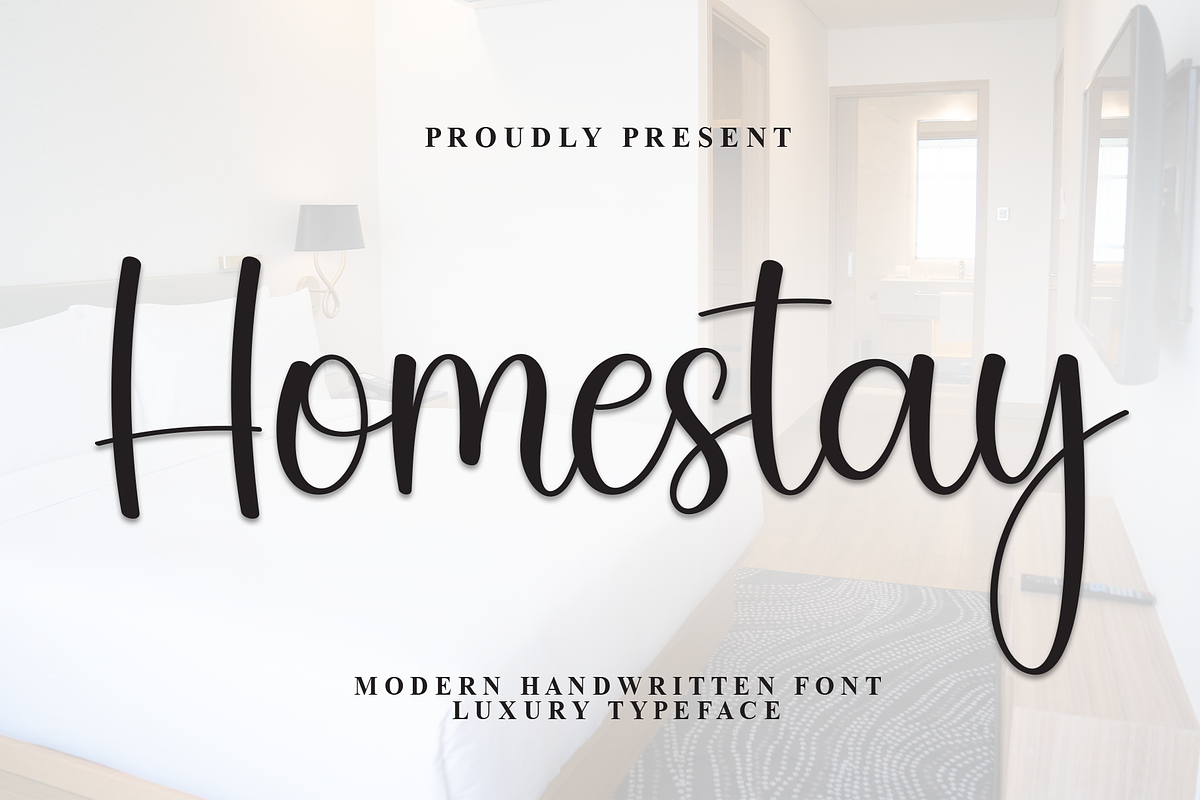
Homestay | Script Font Free Download
Homestay | Script Font Free Download is a warm and inviting handwritten script that brings a cozy, personal feel to any design. With its smooth curves, natural flow, and modern calligraphy style, this font is perfect for home decor prints, branding, social media posts, invitations, and heartfelt quotes.
Designed to look like genuine handwriting, Homestay adds charm and authenticity to both digital and print projects. It’s easy to read while maintaining an elegant, hand-crafted vibe—ideal for lifestyle brands, bloggers, or anyone wanting to infuse their work with a welcoming tone.